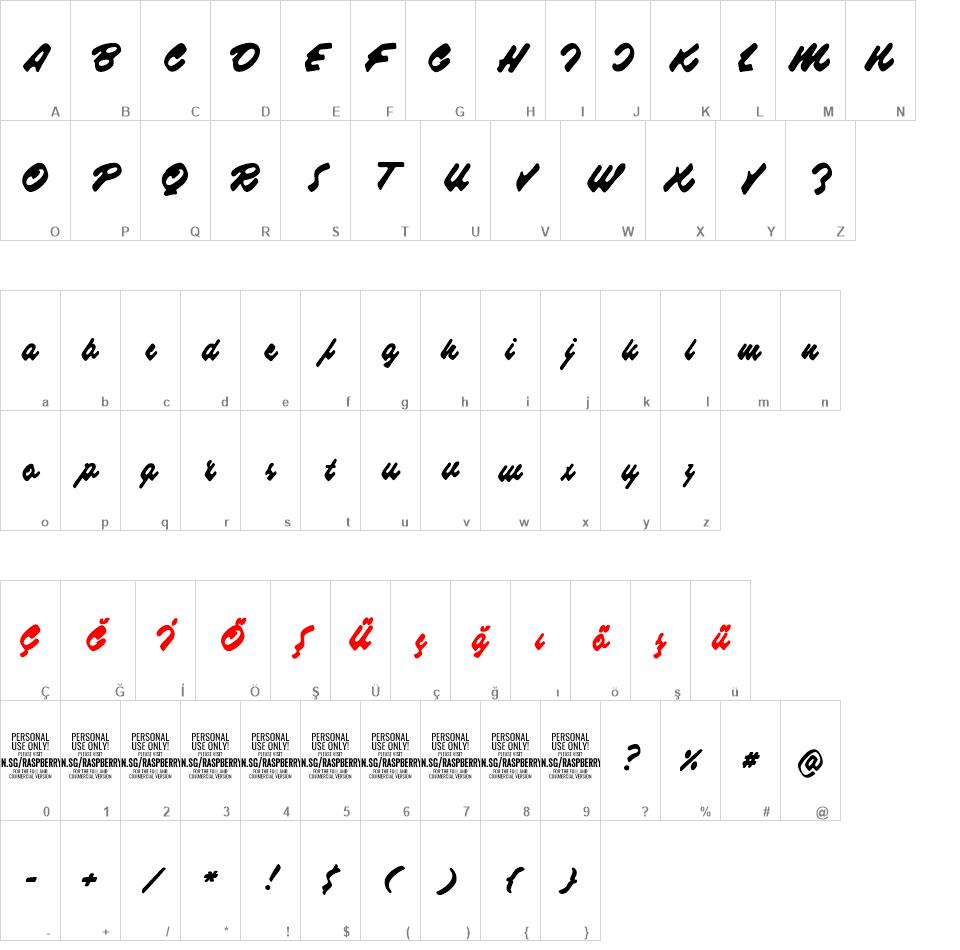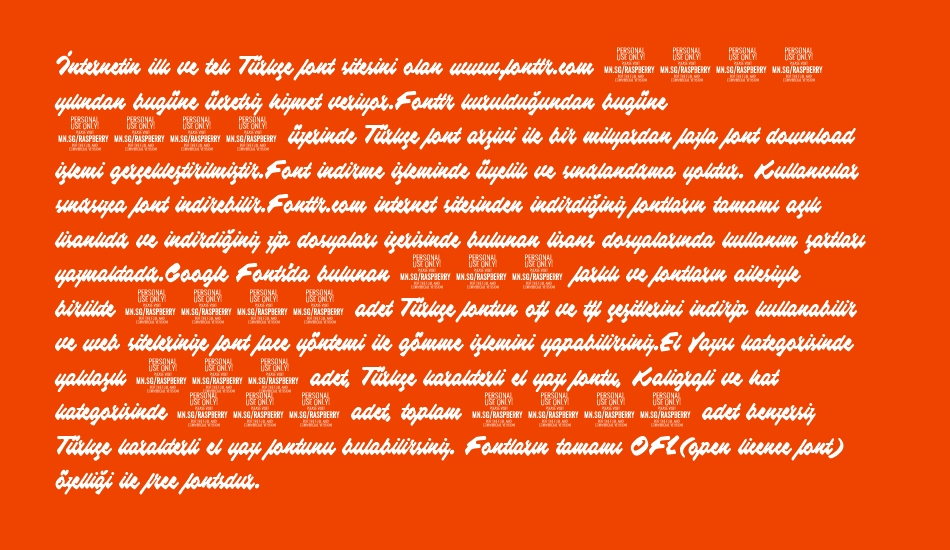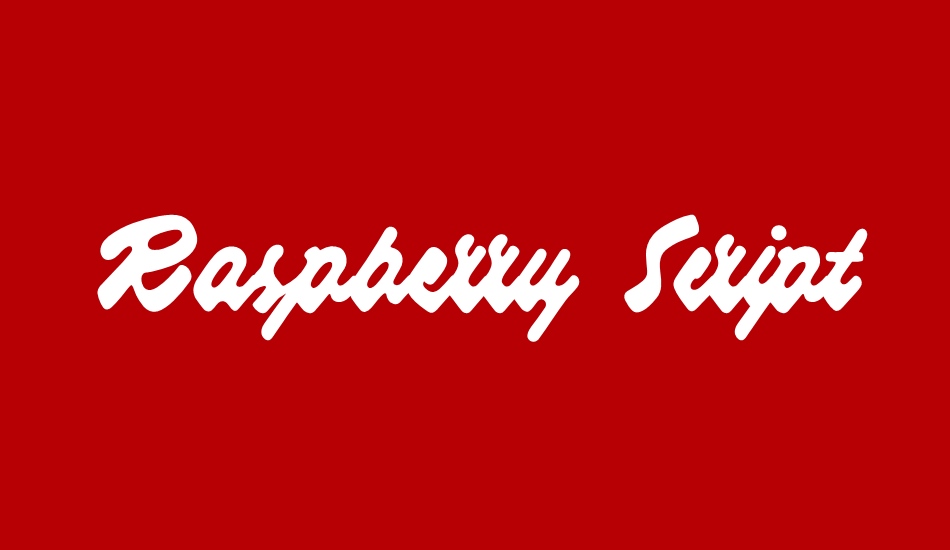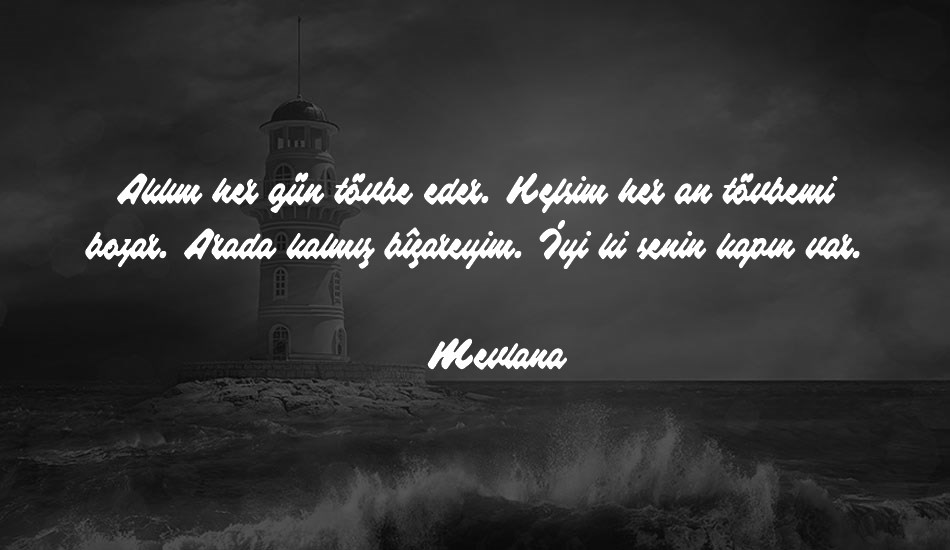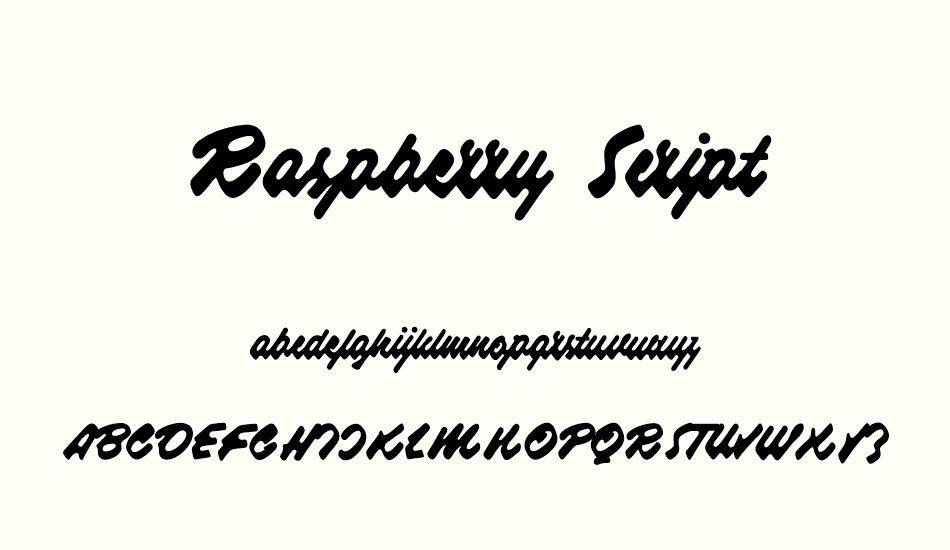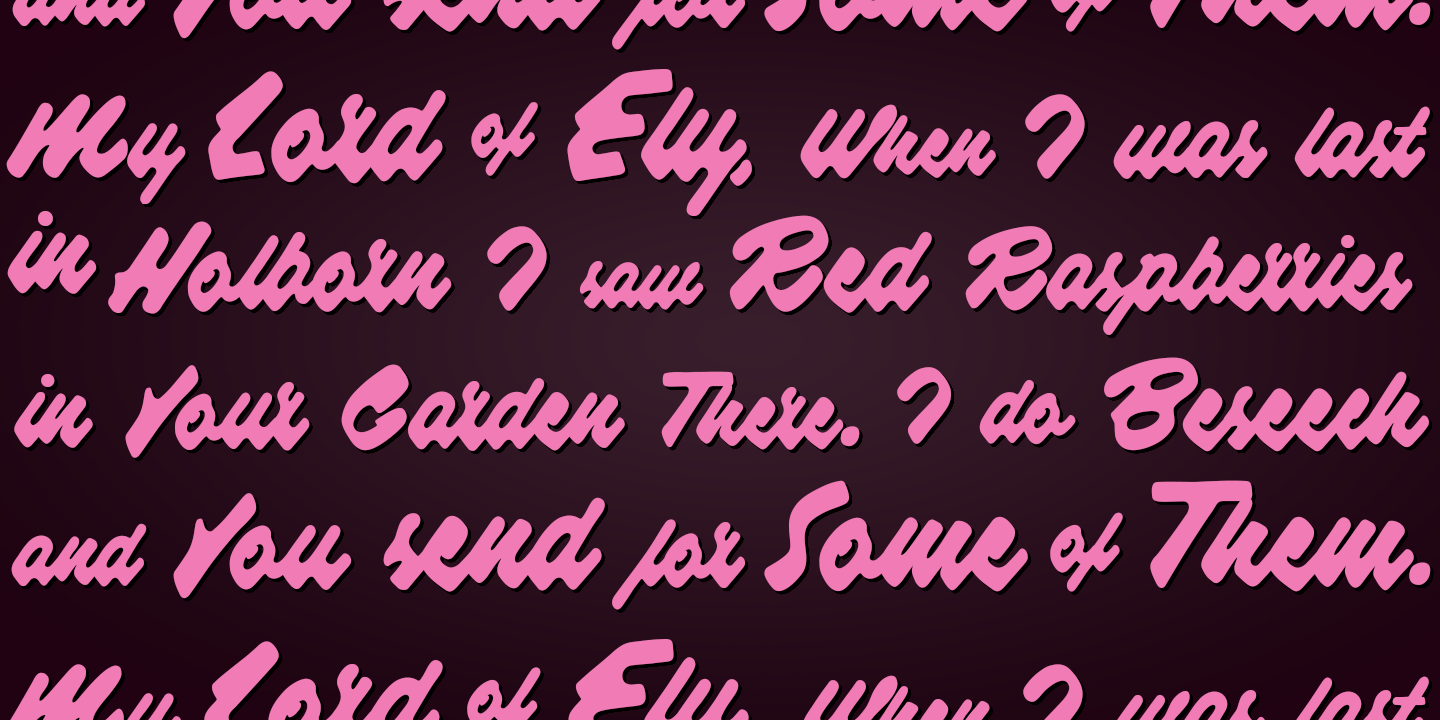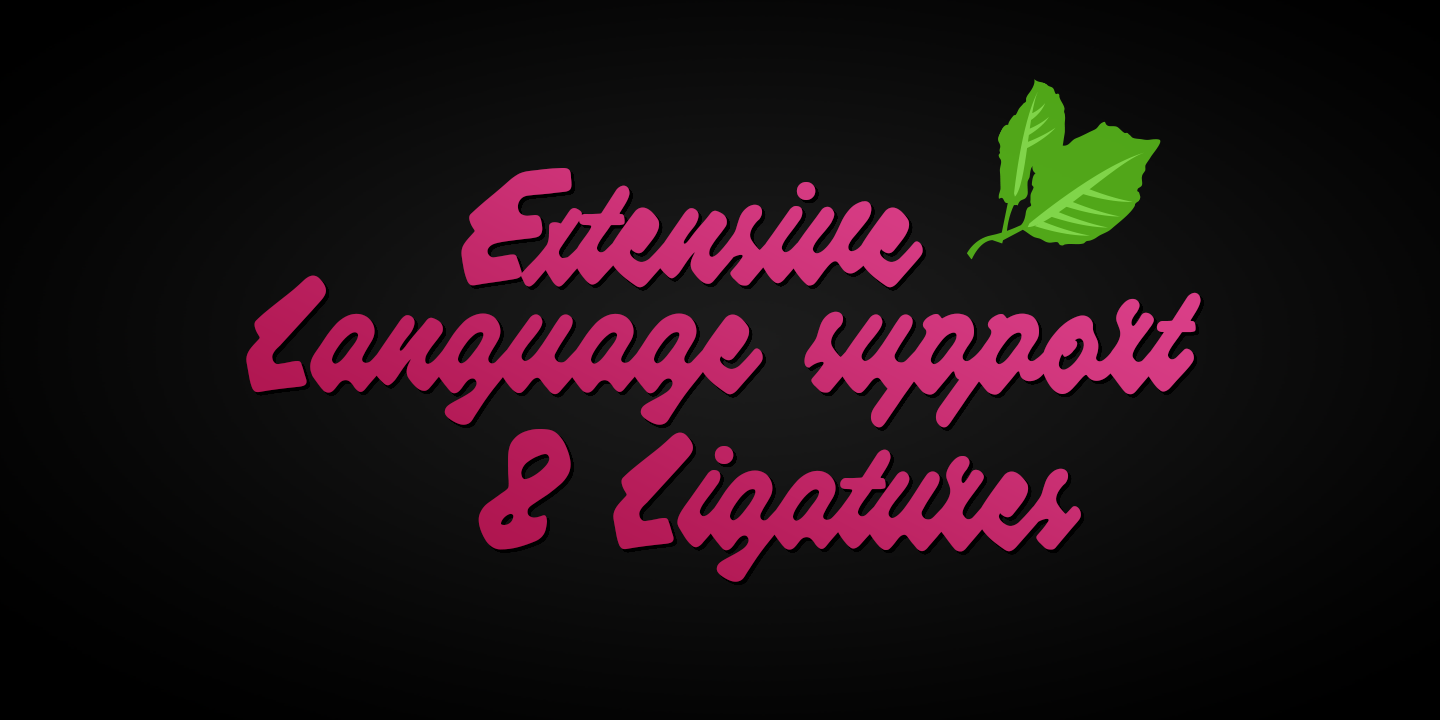
Raspberry Script font
Raspberry Script Font
Raspberry Script is a tall and characteristic script typeface.
It supports hundred of Latin languages, and has several ligatures to maximize the letters' flow.
The font is designed and created by Noah Kinard and M?ns Greb?ck.